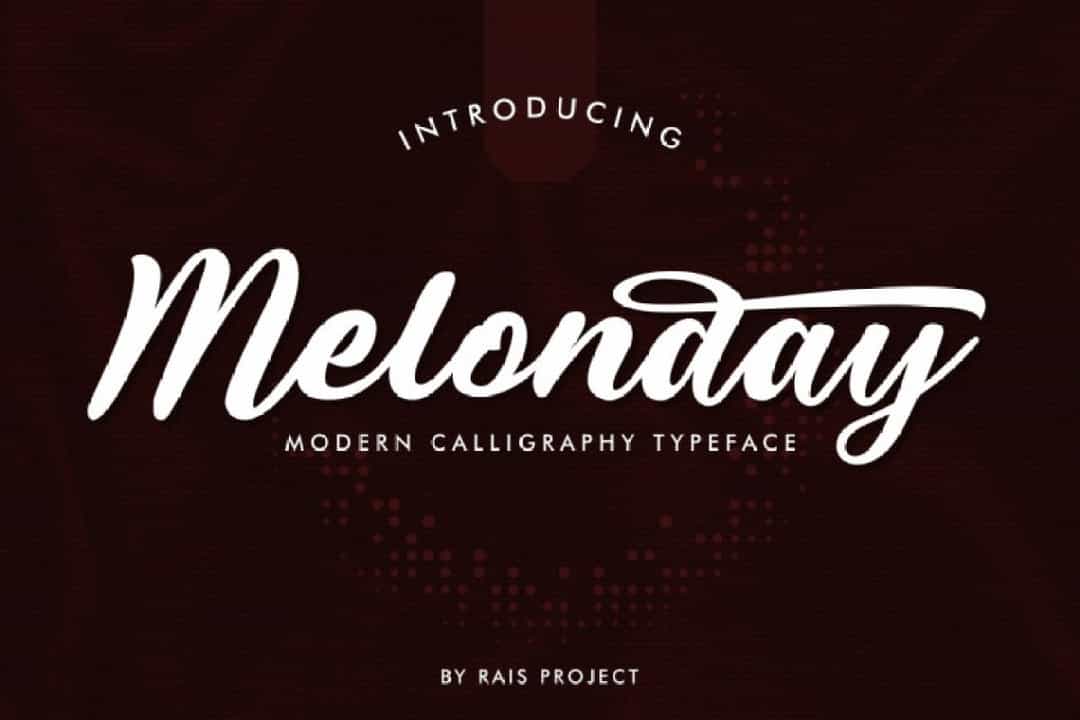
Melonday is a calligraphy font that has been hand written to cater for wedding, promotions and event branding, advertising, magazines, shopping signs, invitation stationery, social media posts, packaging designs, product label, photo watermark, calligraphy handwriting, handwriting or any other project that would require calligraphy style handwriting.